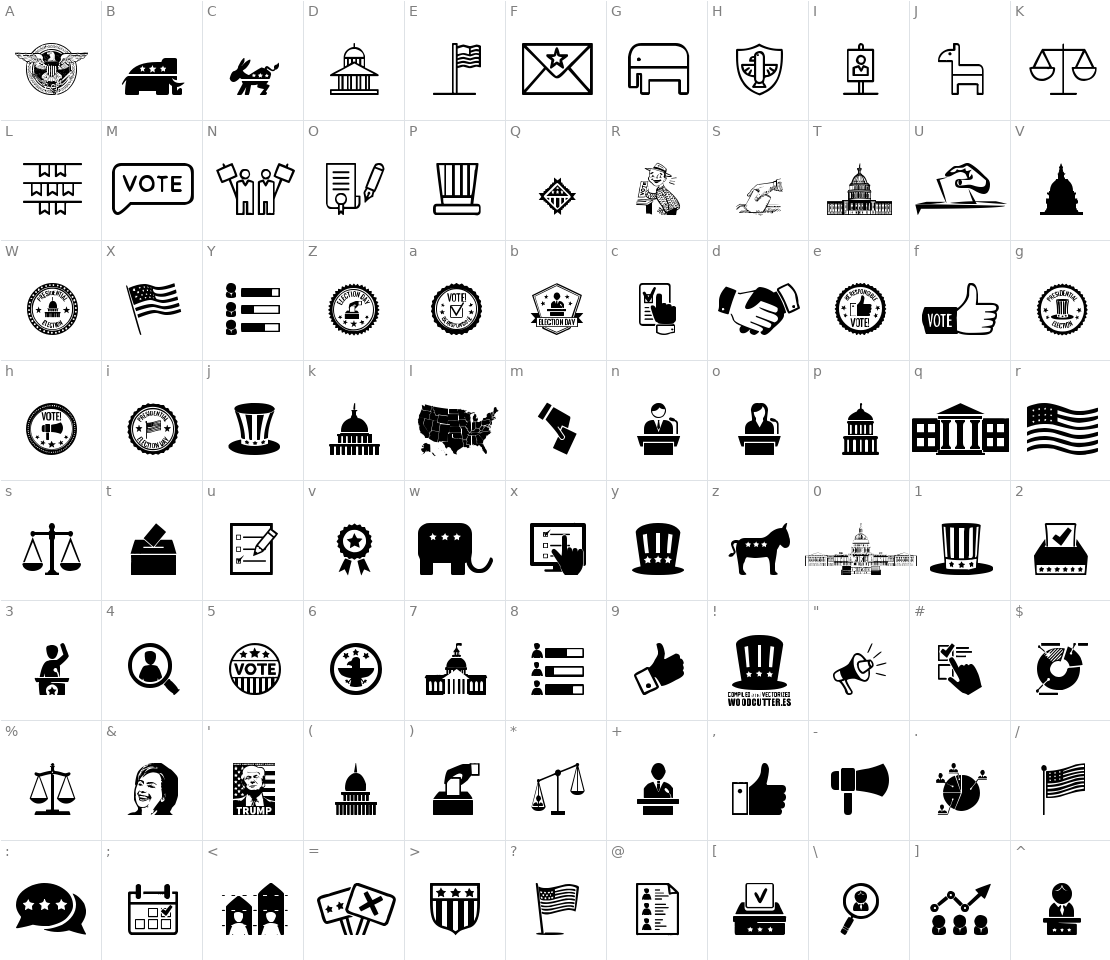
US Election
US Election is a dingbat/symbol font from Woodcutter filled with icons tied to American politics and elections: think ballot boxes, stars, flags, donkeys, elephants, and other patriotic imagery. It's a utility font rather than a text face, designed to drop political-themed graphics into posters, flyers, infographics, and campaign materials without needing separate illustration files.